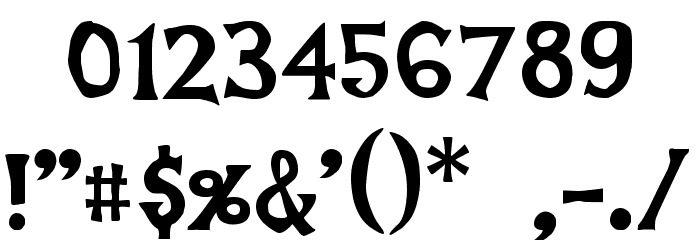
Equestria Font
This font features a playful and whimsical design with a distinctively bold and curvy style. The characters have a hand-drawn appearance, with exaggerated serifs and varying stroke widths that add a dynamic and lively feel. The uppercase letters are particularly expressive, with unique flourishes and curves that give each letter a personality of its own. The lowercase letters maintain the playful theme, with a slightly more subdued flair. Numbers and special characters are consistent with the overall style, ensuring a cohesive look across all text. This font is ideal for projects that require a fun and engaging aesthetic.
A playful, whimsical font with bold, curvy characters and a hand-drawn appearance.
- Overall Style: Playful, Whimsical